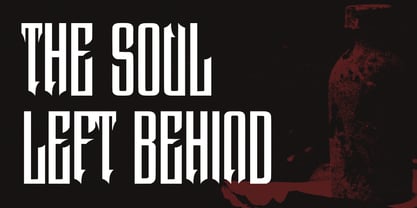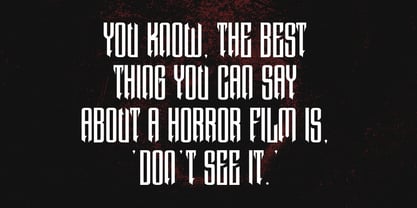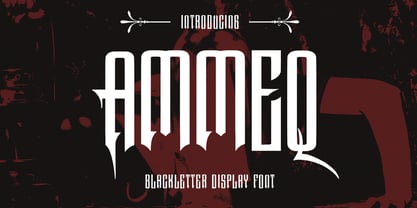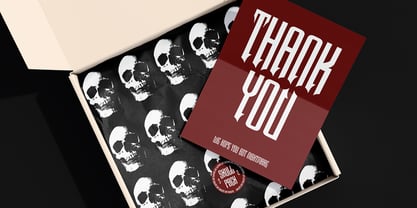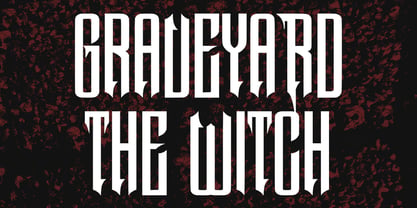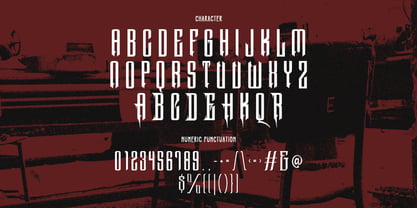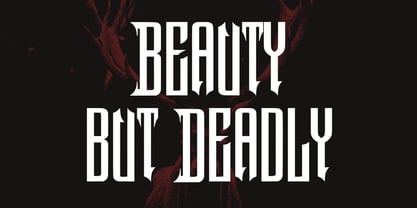
MC Ammeq
by Maulana Creative
The MC Ammeq Font Family was designed by Gilang Maulana and published by Maulana Creative. MC Ammeq contains 1 styles.
Introducing Ammeq Blackletter Typeface Font.
Ammeq Blackletter Font is a handmade Modern Victorian handlettering, which is combining modern and classic typography with some awesome alternates. Yes we back to early 1800s, bring classic touch on this decade.